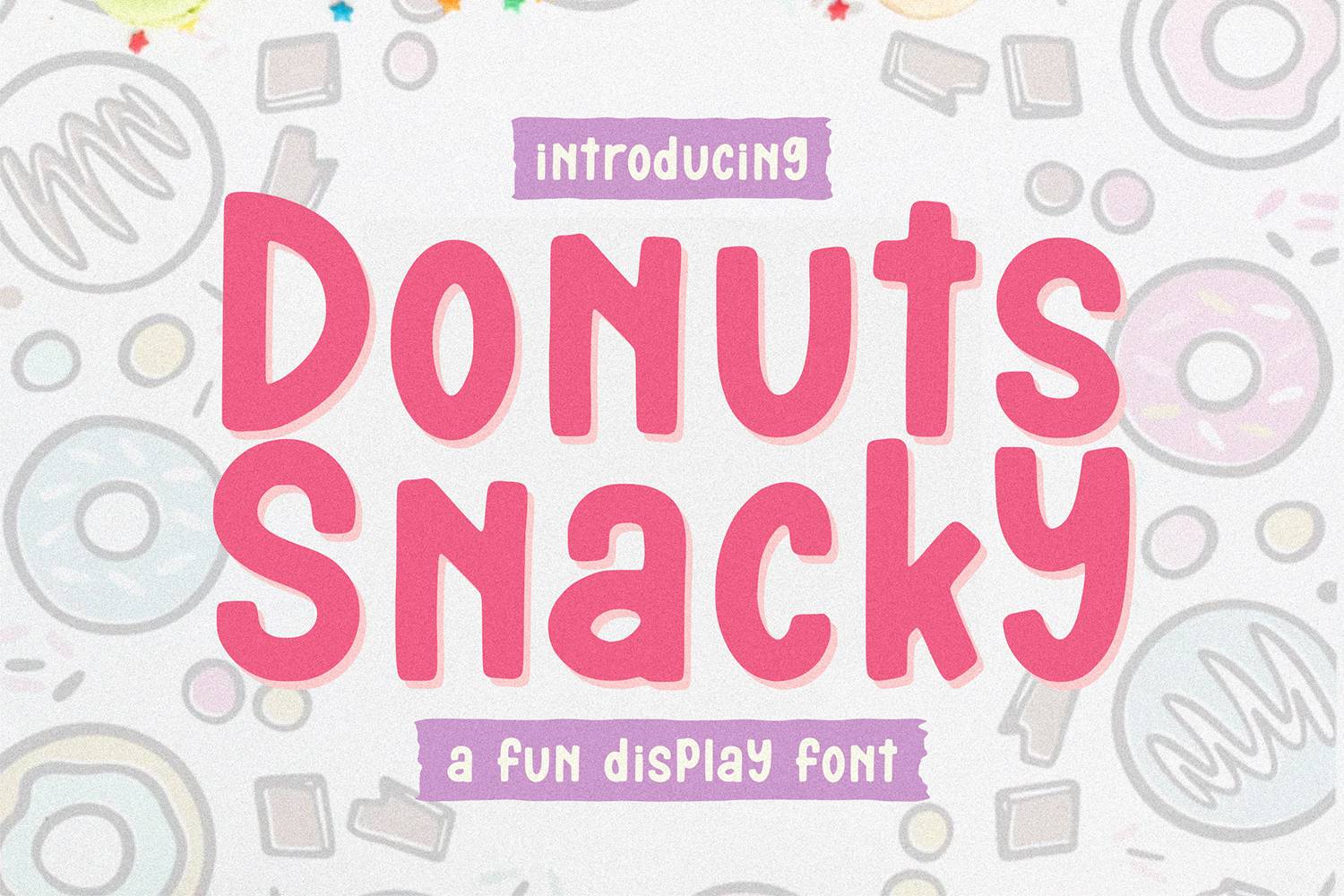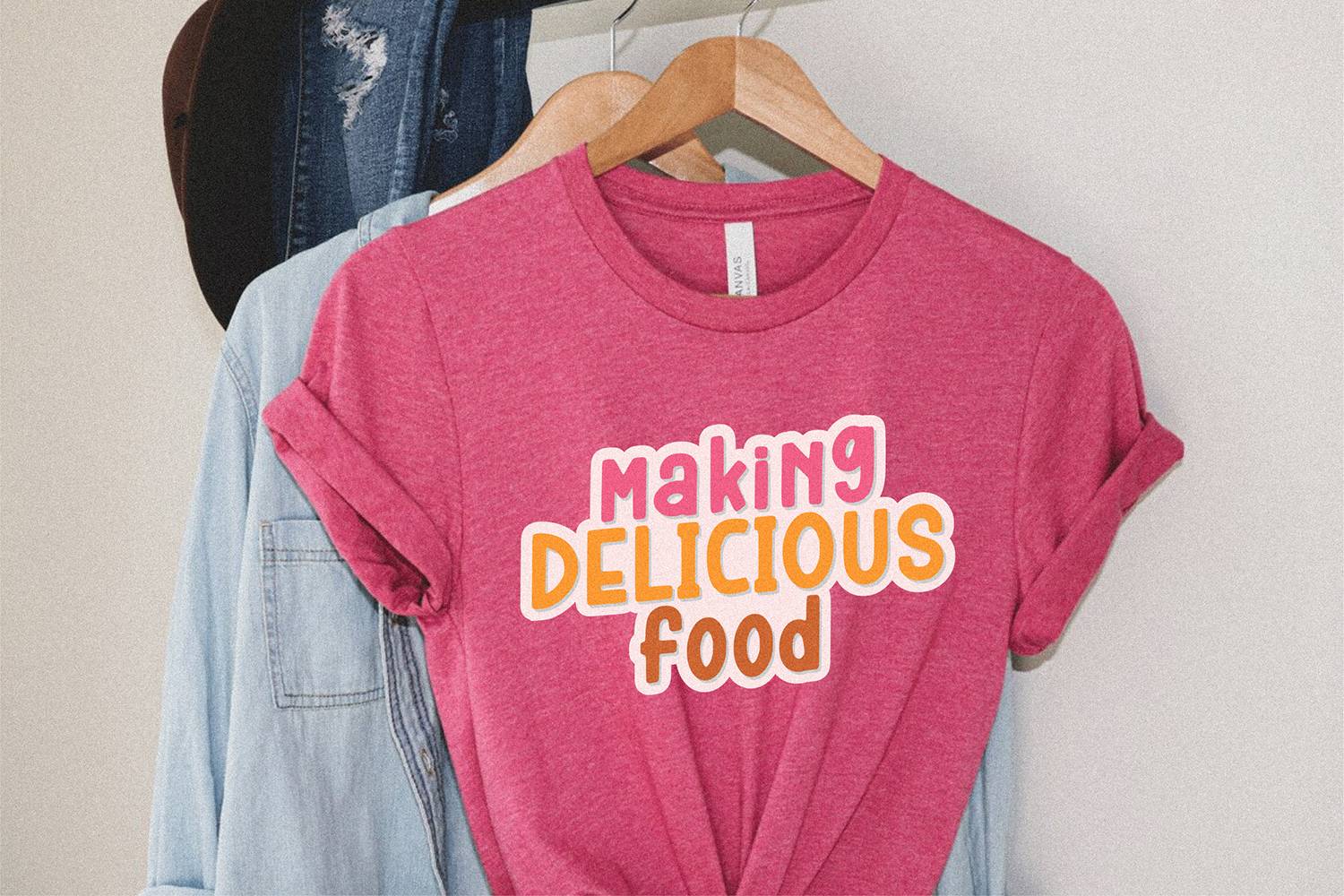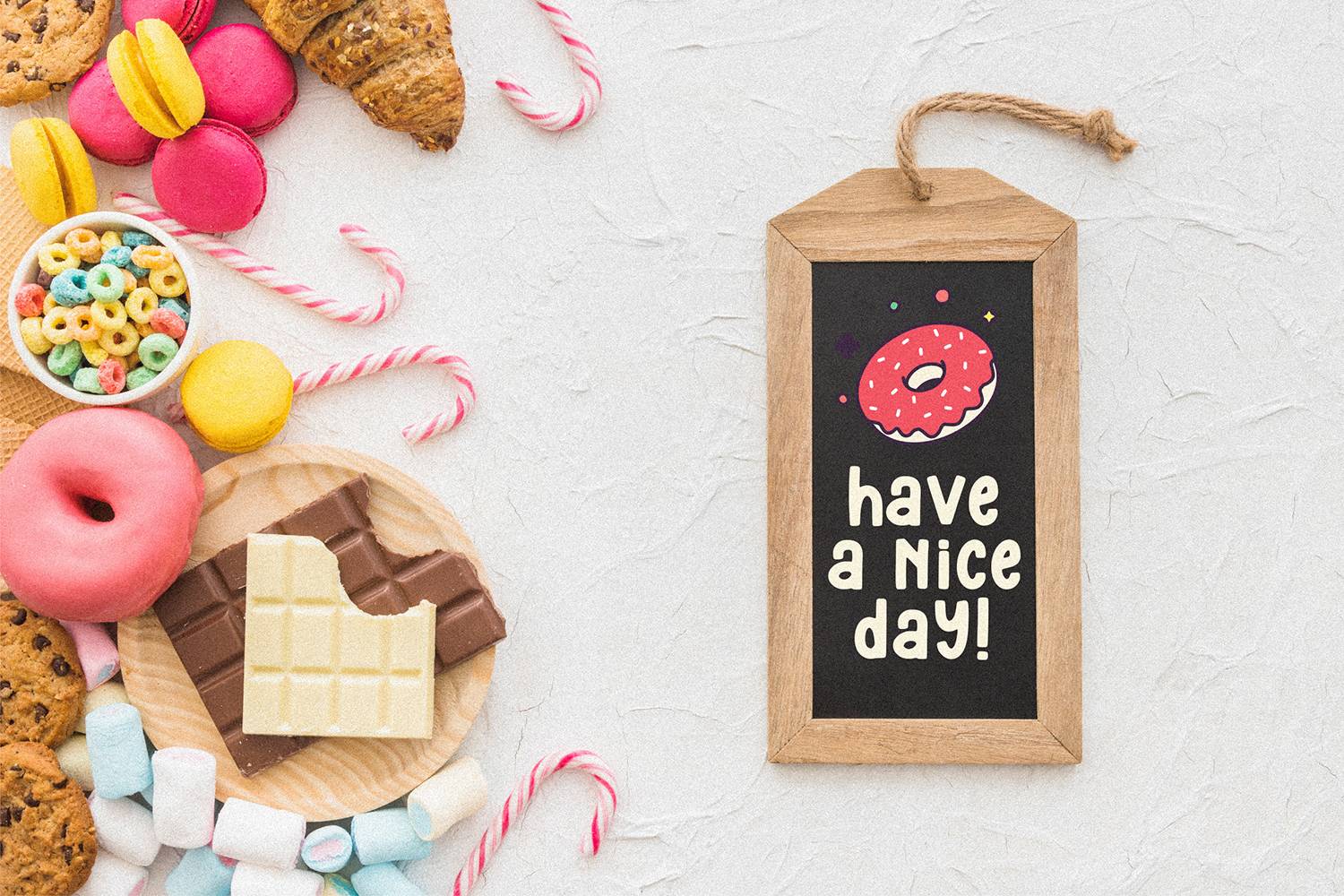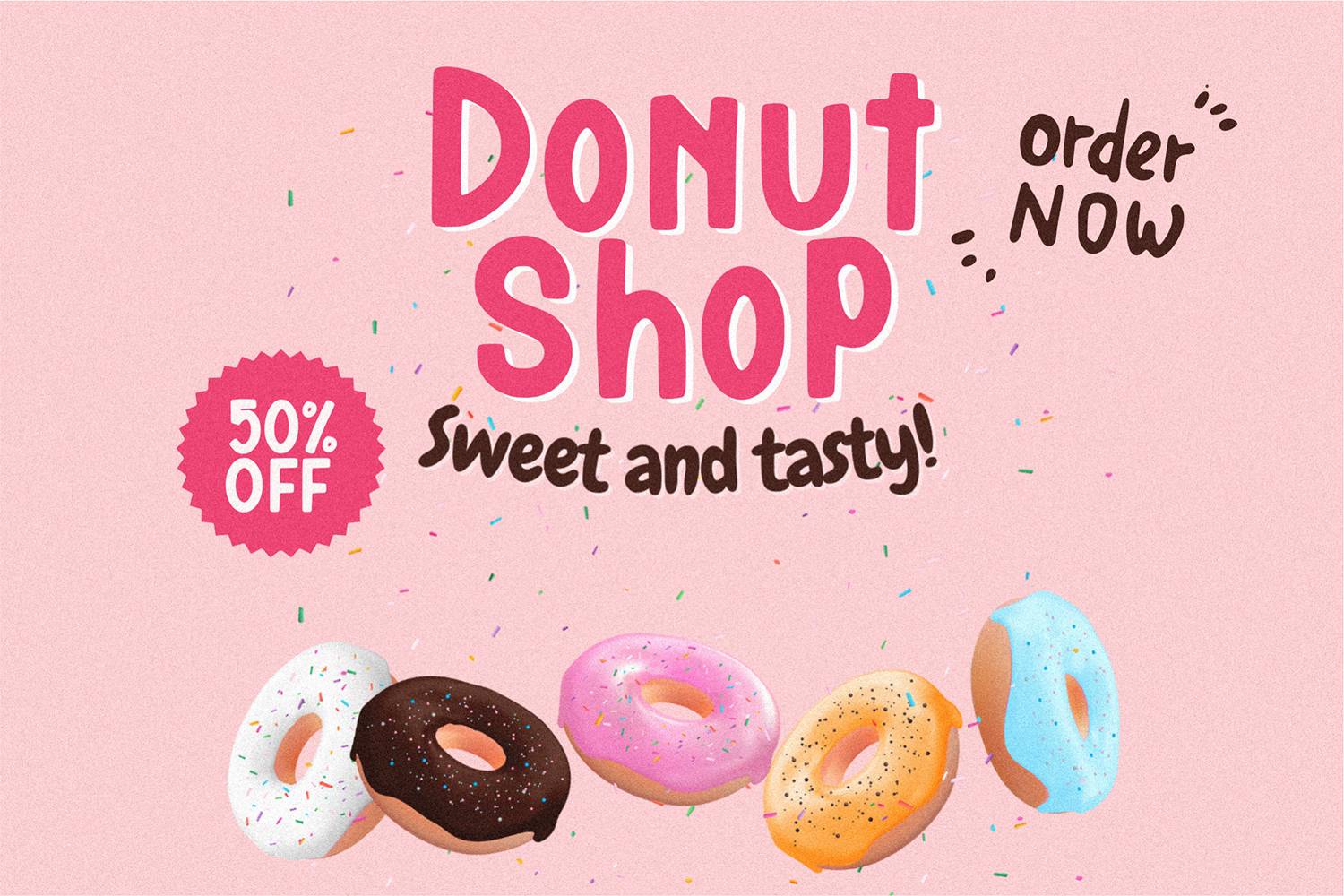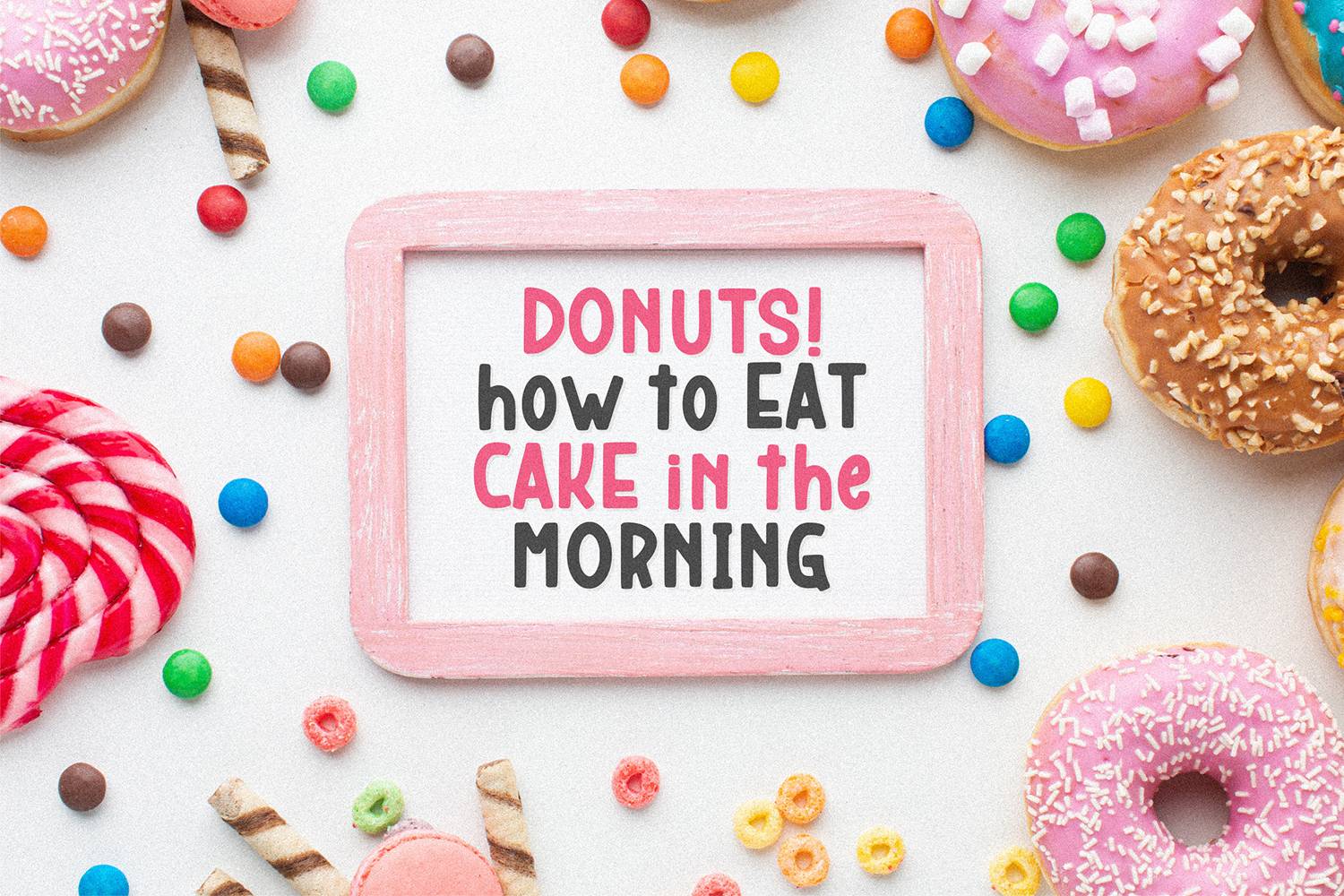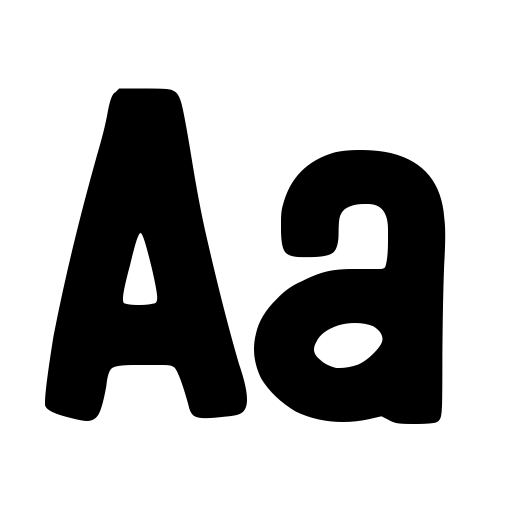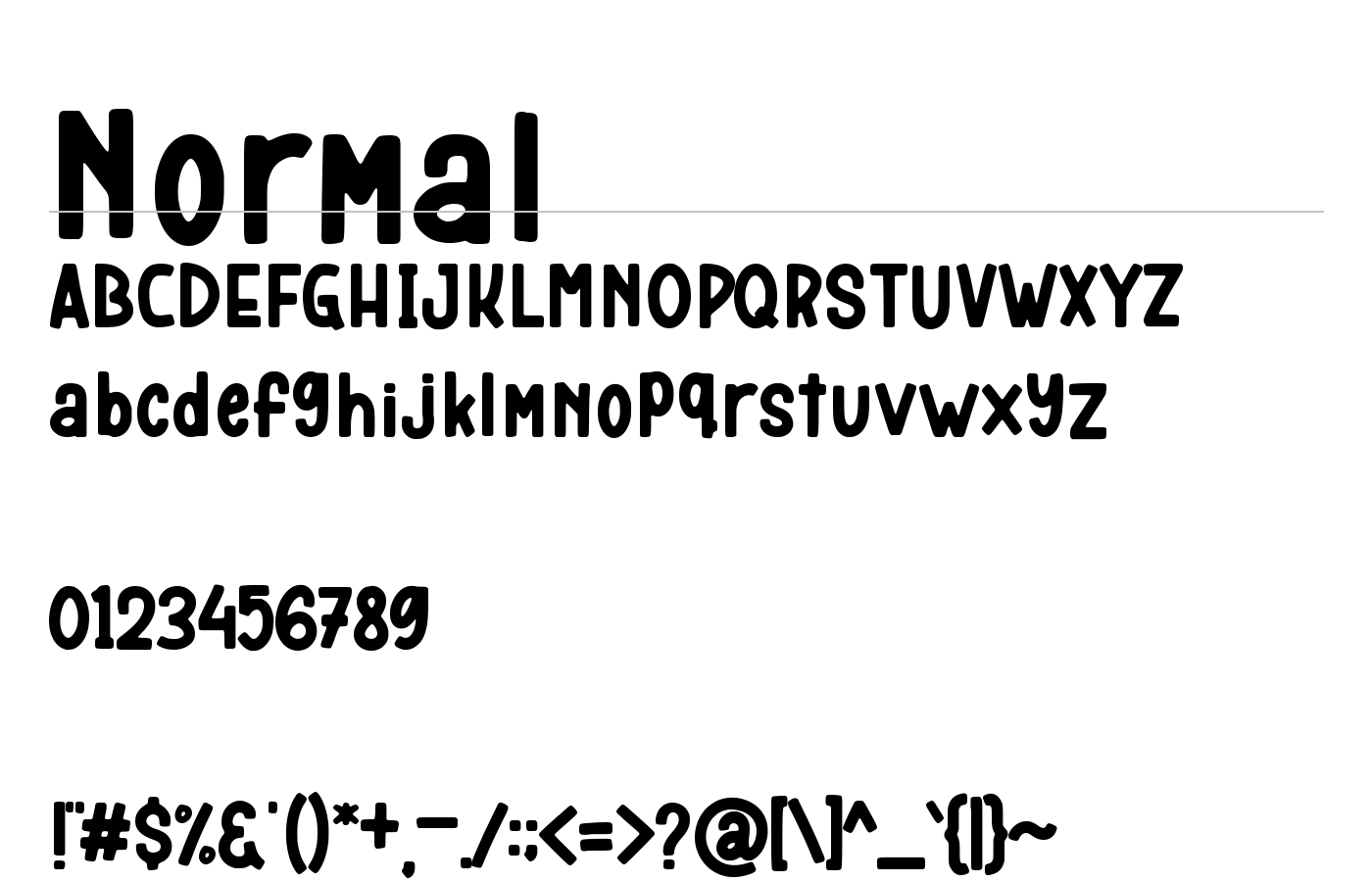
Donuts Snacky is a playful and informal sans serif font with a hand-drawn feel, featuring rounded edges and slightly irregular shapes that give it a friendly, casual personality. Its bold weight and tight spacing make it ideal for attracting attention in headlines, packaging, and branding for fun, youthful, or creative projects. This font works especially well where a lively, approachable vibe is desired, such as children's products, snack packaging, or playful editorial designs.
Donuts Snacky Font